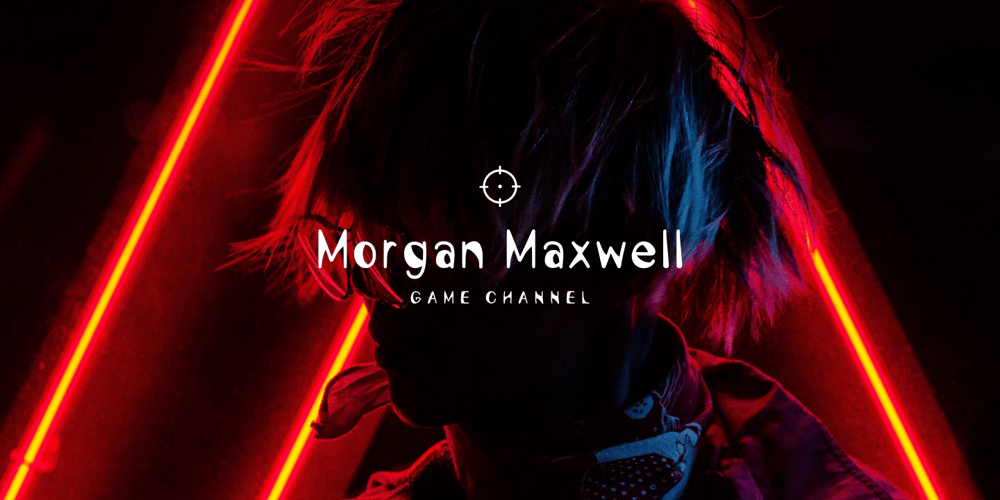
Oh Mabuboo Font Family was designed by sirikamon chaiphom and published by Aomam. Oh Mabuboo contains 2 styles and family package options. Oh Mabuboo is a typeface that combines current technologies with an antique look. The designer’s fascination in vintage was the source of inspiration for the design.